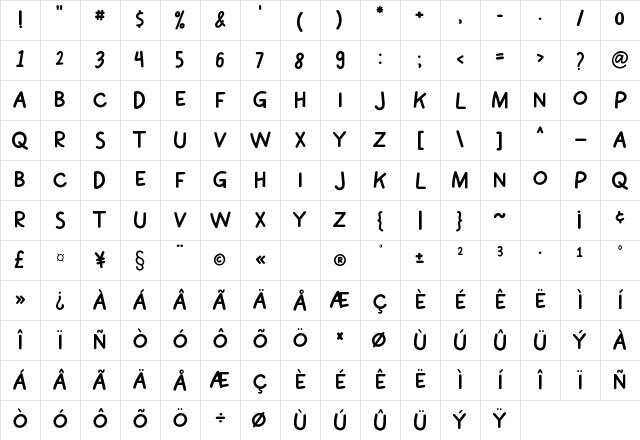
Complete Quirky Sans Regular glyph index. Displaying only characters natively supported by Quirky Sans Regular font.
Quirky Sans is a composed and adaptable typeface that performs quietly and consistently across a wide range of design contexts.
Pro Tip: Use Quirky Sans in both headline and body roles to test its range before committing to a single application.
Who designed the Quirky Sans Regular font?